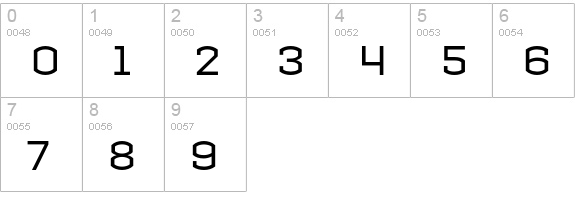
Armada-Regular is the standard, neutral variant in the Armada typeface family \xE2\x80\x94 well suited to general body text, paragraphs, and standard typographic work.
Armada-Regular is a versatile and modern font that exudes a sense of strength and confidence. With its clean lines and sharp edges, this typeface is perfect for a wide range of design projects, from branding to editorial design. The balanced combination of geometric shapes and elegant curves gives Armada-Regular a distinctive look that captures attention and commands authority. What makes Armada-Regular even more appealing is that it is completely free to download at FontsMarket.com. This means that you can start using this impressive font in your projects without any cost, making it a valuable asset for designers and creatives looking to enhance their work with a touch of sophistication and style. Don't miss out on the opportunity to add Armada-Regular to your font library and elevate your designs to the next level.